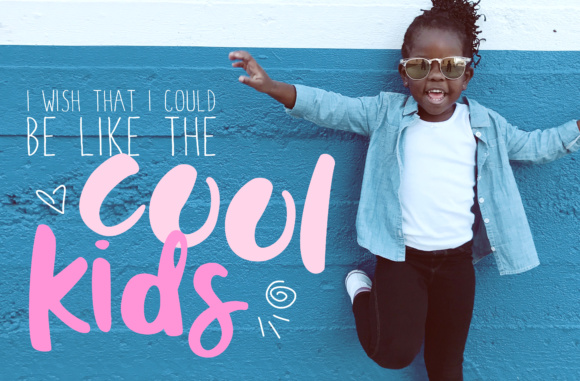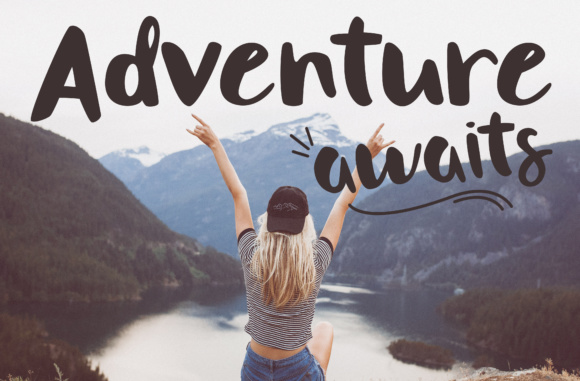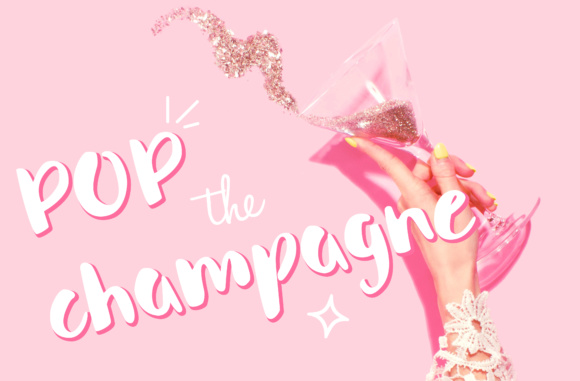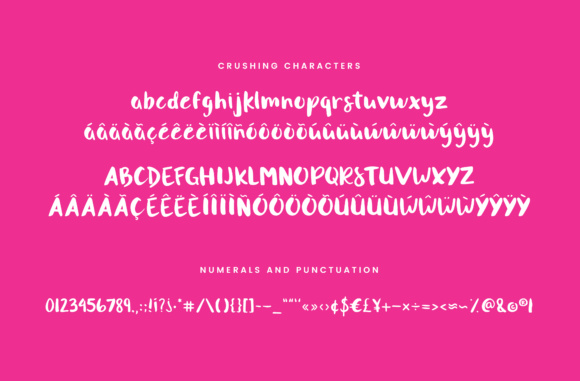
Unleash Your Creativity with Crushing Font: The Quirky Brush Font That’s a Game-Changer
Are you tired of using the same old fonts in your designs? Do you want to add a touch of playfulness and whimsy to your projects? Look no further than Crushing Font, a quirky brush font that’s sure to take your designs to the next level. In this article, we’ll dive into the world of Crushing Font and explore its features, benefits, and uses.
What is Crushing Font?
Crushing is a unique and charming brush font that’s perfect for designers and crafters looking to add some fun and personality to their work. With its smooth letters and quirky feel, Crushing Font is ideal for a wide range of projects, from invitations and greeting cards to posters and social media graphics.
Key Features of Crushing Font
- Quirky and Playful: Crushing Font has a fun and carefree vibe that’s sure to capture the attention of your audience.
- Smooth Letters: The font features smooth, flowing letters that are easy to read and look great in any design.
- Brush Font: Crushing Font has a beautiful, hand-brushed feel that’s perfect for adding a touch of personality to your designs.
- Versatile: This font is suitable for a wide range of projects, from digital designs to print materials.
Benefits of Using Crushing Font
So why should you choose Crushing Font for your next project? Here are just a few benefits of using this amazing font:
- Adds Personality: Crushing Font is a great way to add some personality and whimsy to your designs, setting them apart from the crowd.
Uses for Crushing Font
Crushing Font is a versatile font that can be used in a wide range of projects, including:
- Invitations: Use Crushing Font to create fun and playful invitations for parties, weddings, and other special events.
- Greeting Cards: Add a personal touch to your greeting cards with this charming font.
- Posters: Create eye-catching posters for events, promotions, and products using Crushing Font.
- Social Media Graphics: Use this font to create engaging social media graphics that stand out from the crowd.
- Branding: Crushing Font can also be used in branding materials, such as logos, business cards, and letterheads.
Tips for Using Crushing Font
Here are a few tips for getting the most out of Crushing Font:
- Experiment with Colors: Try pairing Crushing Font with different colors and textures to create unique and eye-catching designs.
- Play with Size: Experiment with different font sizes to create visual interest and hierarchy in your designs.
- Mix and Match: Combine Crushing Font with other fonts and graphics to create a truly unique look.
| Font Name | Crushing Font |
| Author | Christine Teixeira |
In conclusion, Crushing Font is a quirky and charming brush font that’s perfect for designers and crafters looking to add some fun and personality to their work. With its smooth letters, quirky feel, and versatility, Crushing Font is a great choice for a wide range of projects. Whether you’re creating invitations, posters, or social media graphics, this font is sure to take your designs to the next level.